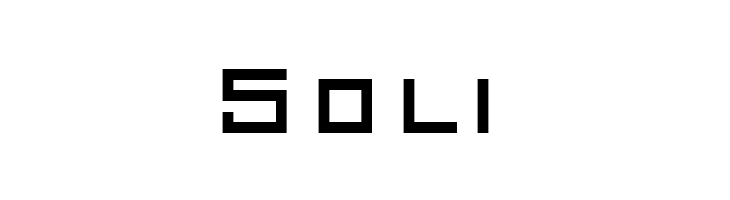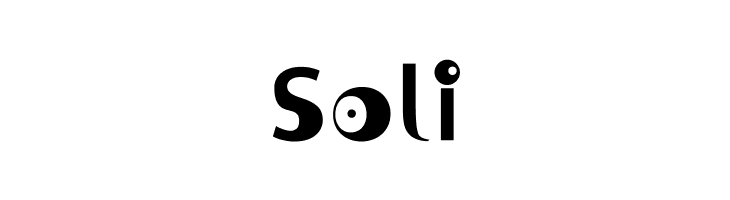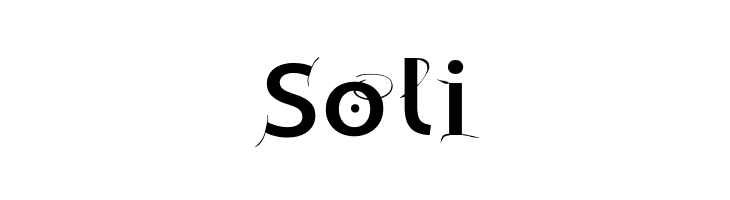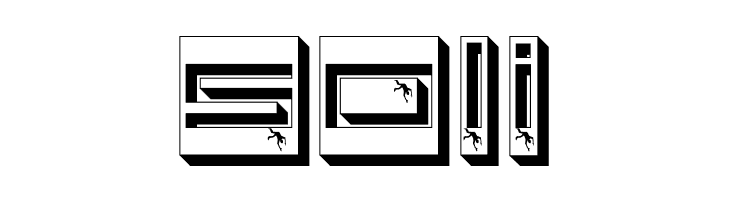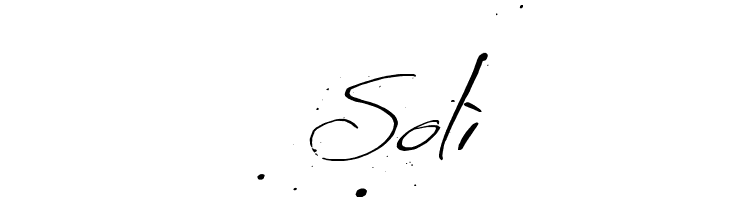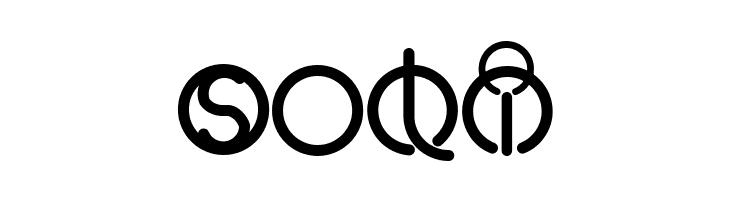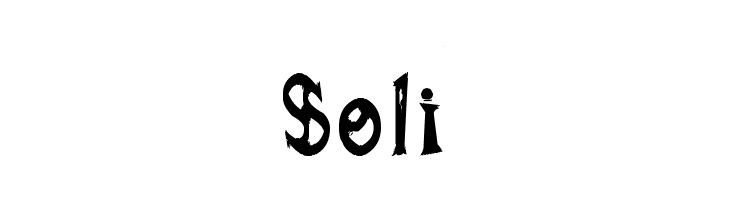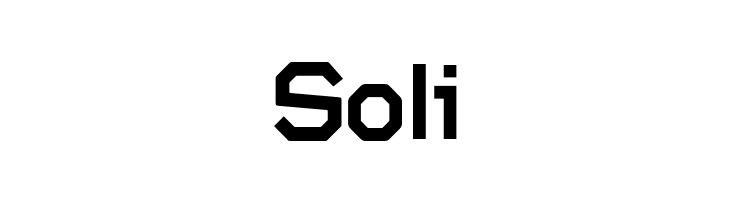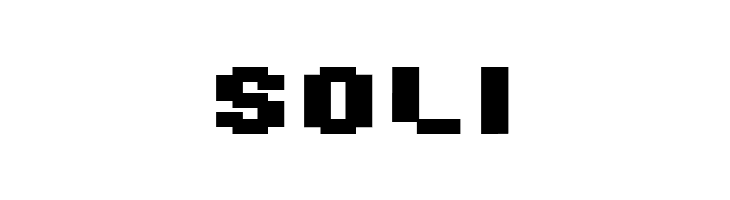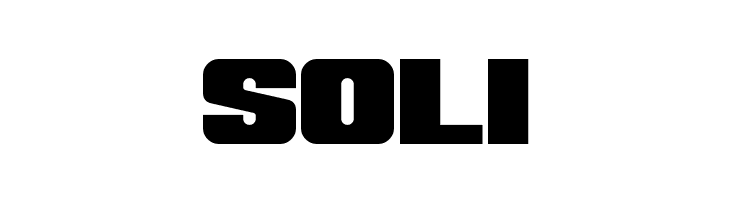
A bold, dynamic font with thick strokes and a playful, energetic style.
A bold, 3D block font with playful figures and shadow effects.
A playful, handwritten font with tall, narrow letters and a casual style.
A bold, playful font with a chunky, hand-drawn style.
A bold, rounded font with a playful and modern retro style.
A bold, geometric font with a playful and modern style.
A dynamic, expressive handwritten font with bold, sweeping strokes.
A bold, playful handwritten font with rounded edges and consistent strokes.
A playful and whimsical font with unique, quirky letterforms.
A playful, hand-drawn font with an informal and approachable style.
A playful, hand-drawn font with curly, whimsical letterforms.
( This is the font used in Gamecube Mario Games. )
A bold, angular font with a retro video game aesthetic.
A bold, geometric font with a retro aesthetic, ideal for impactful designs.
A bold, italicized retro font with high contrast and dynamic style.
A bold, modern sans-serif font with geometric lines and strong presence.
A bold, italicized font with a modern and sleek appearance.
A modern sans-serif font with geometric shapes and uniform strokes.
A modern, italic sans-serif font with a sleek and dynamic appearance.
A modern, italic font with clean lines and a dynamic appearance.
A pixelated, retro-style font with a digital, blocky appearance.
A decorative serif font with playful swirls and bold characters.
A playful, modern font with bold, geometric elements and whimsical curves.
A modern, geometric font with clean lines and a structured appearance.
A modern, rounded font with smooth curves and a clean, geometric structure.
A bold, blocky font with a strong, sports-inspired design.